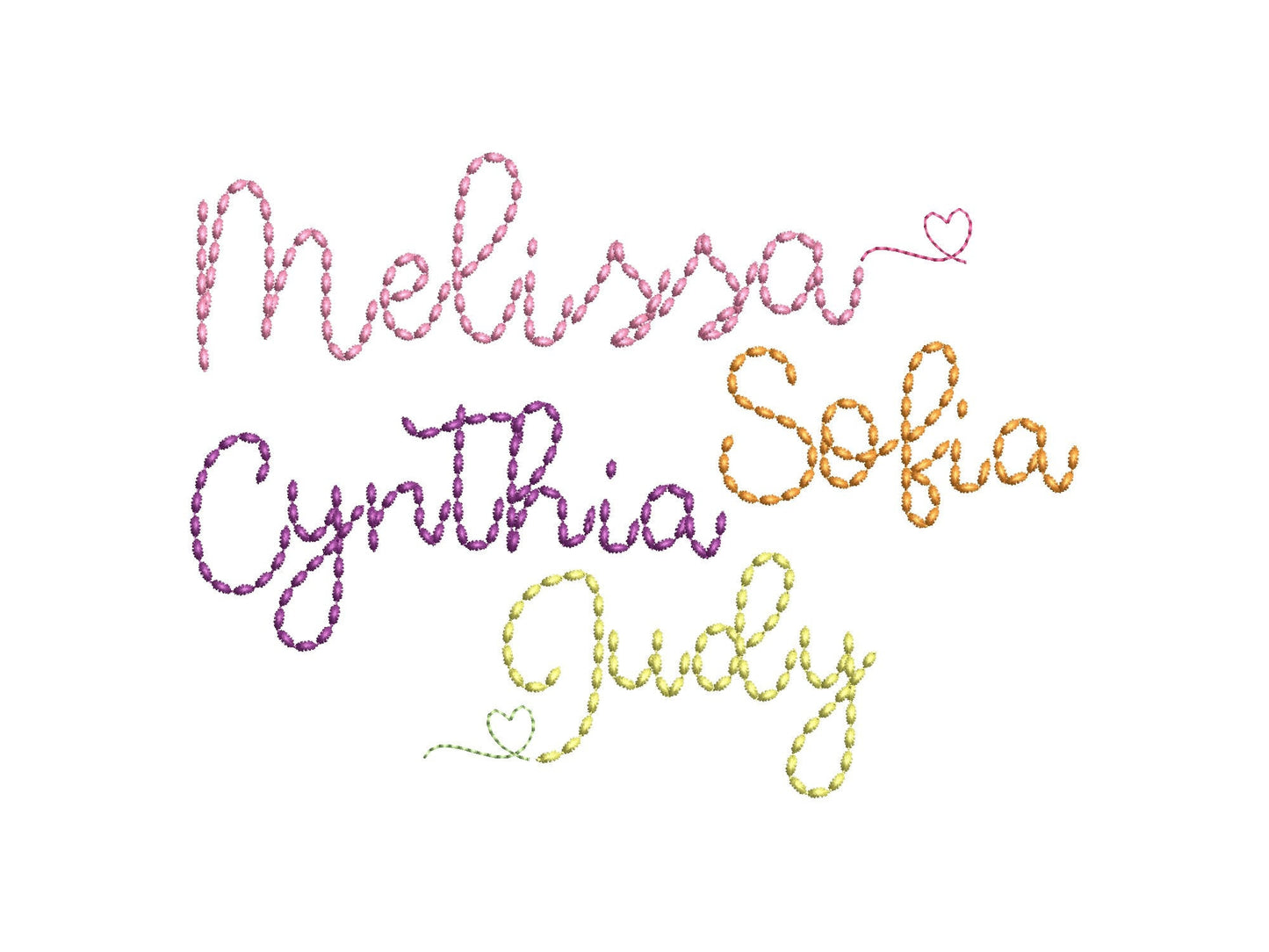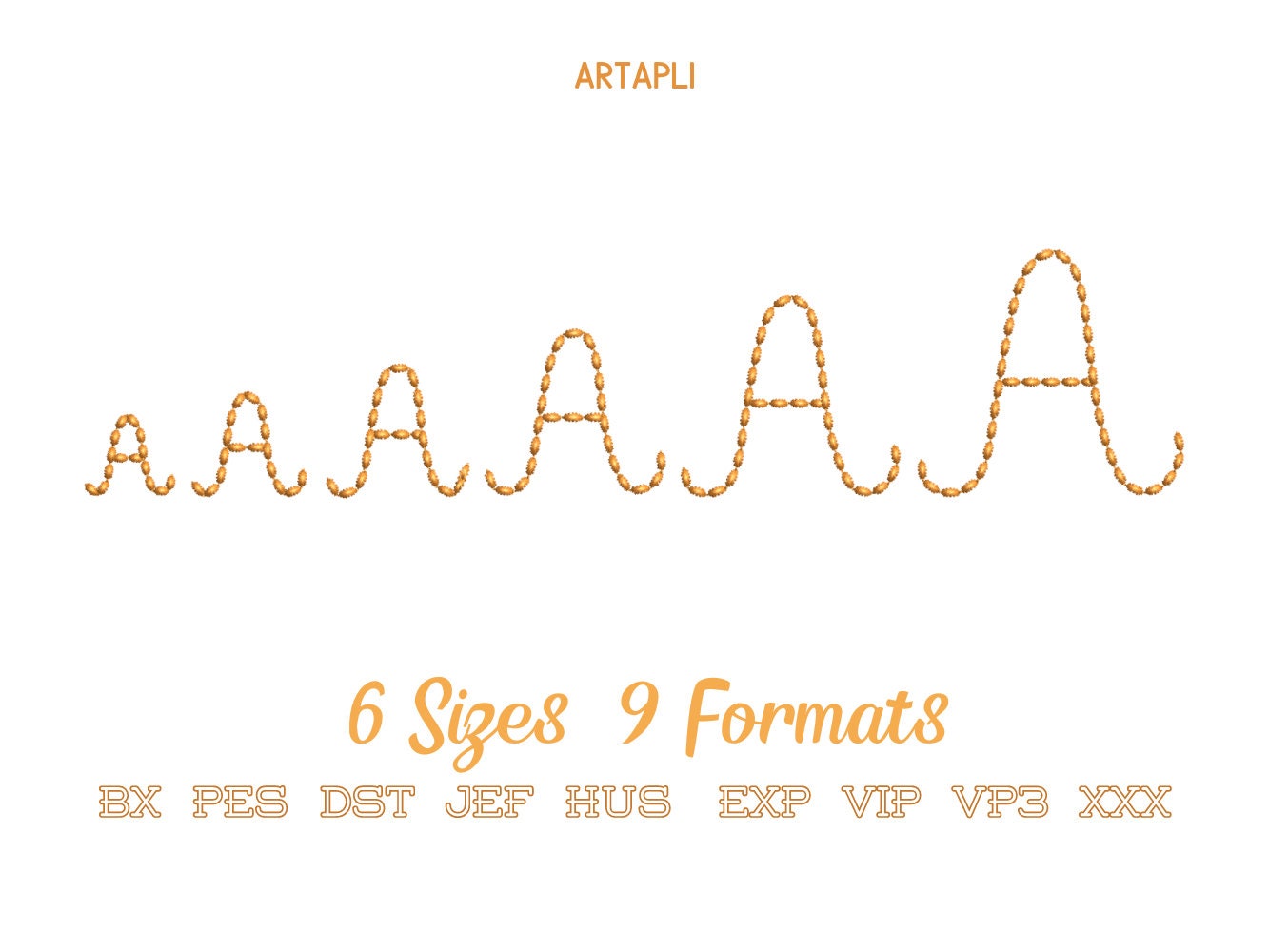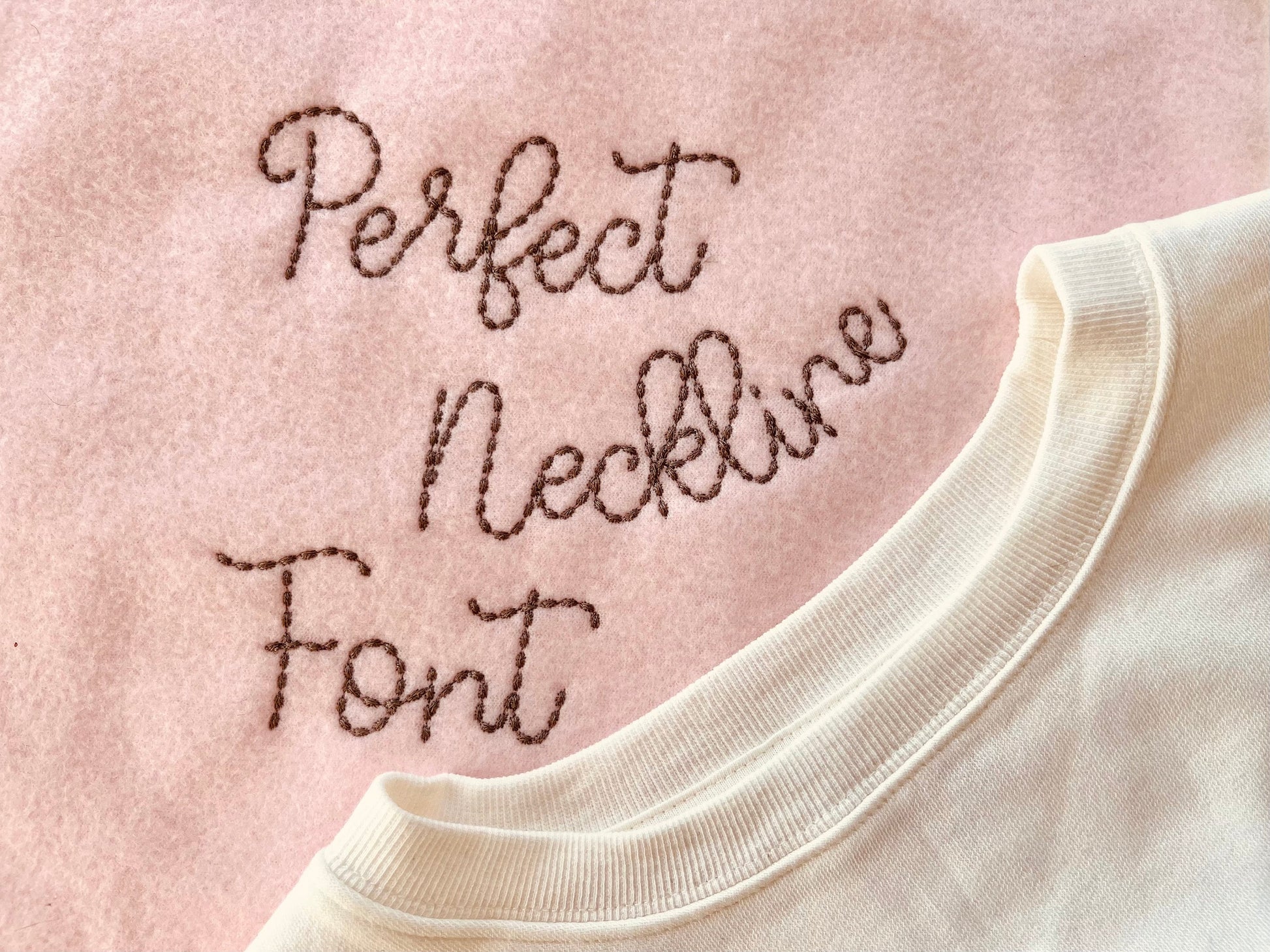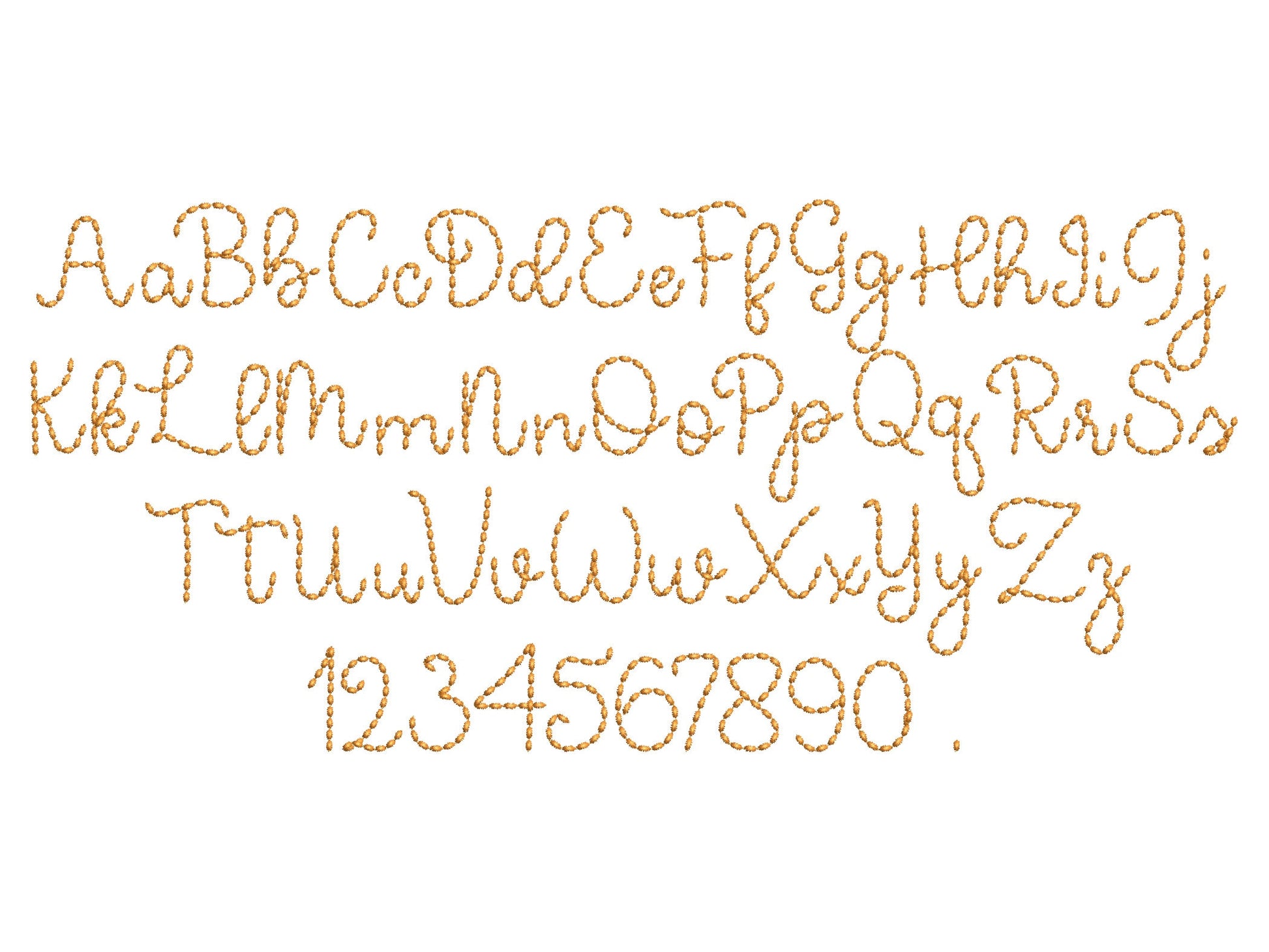
Quick Light Bean Stitch Script Neckline Font
Included: Uppercase A-Z, Lowercase a-z, Numbers 0-9, Punctuation
A quick, light bean stitch script in mini sizes. Great for kids' names, short sayings and lettering around a neckline.
Uppercase and lowercase letters, numbers 0 to 9 and a period. Six mini sizes: 0.7, 1, 1.2, 1.5, 1.8 and 2.2 inches. A heart tail add-on in a different stitch finishes a name.
• Light bean stitch script font with heart tail add-on
• Uppercase, lowercase, numbers 0 to 9, period
• 6 sizes, 0.7 to 2.2 in